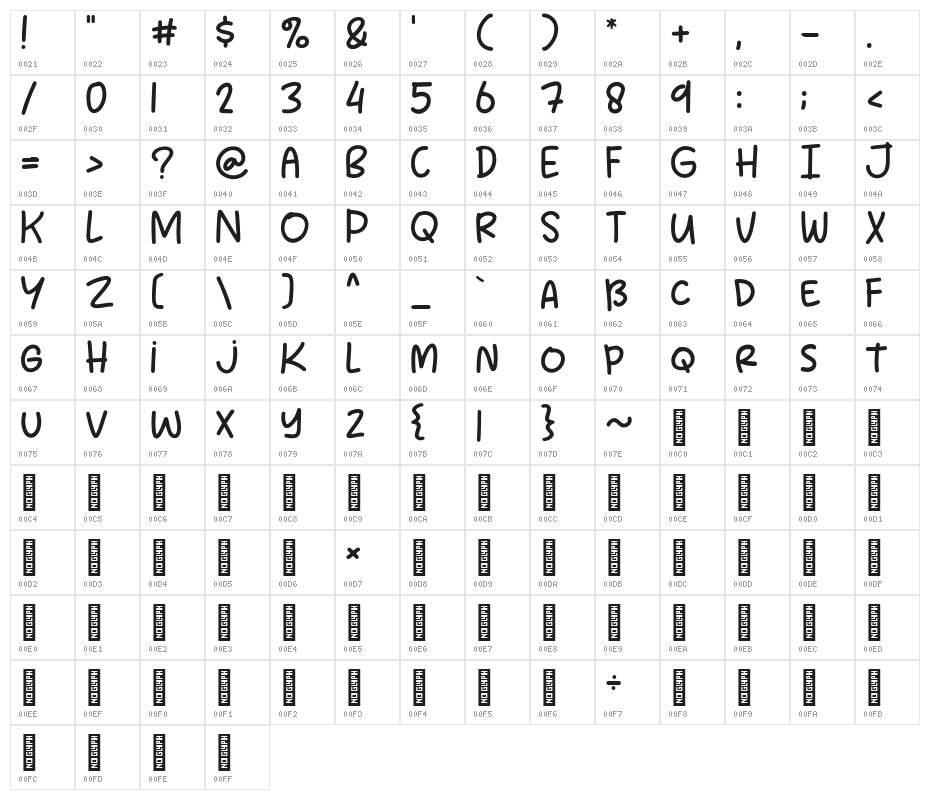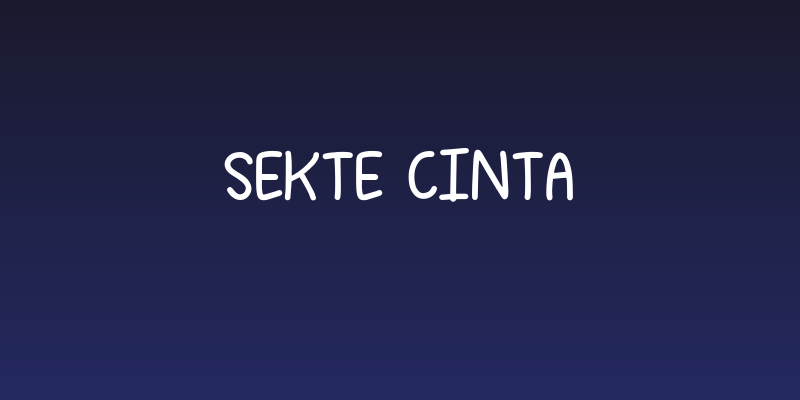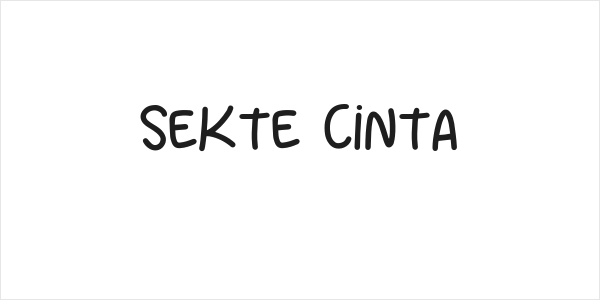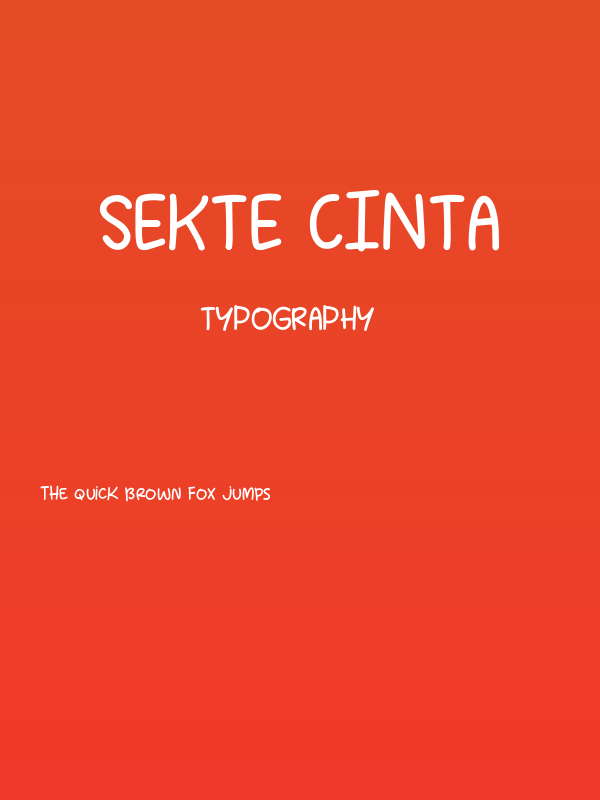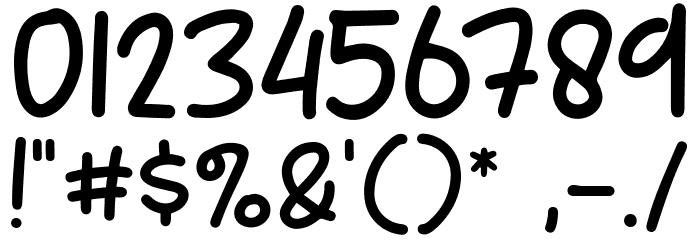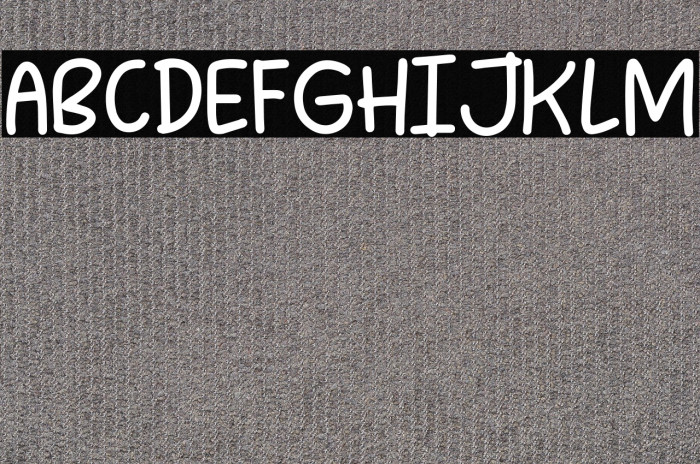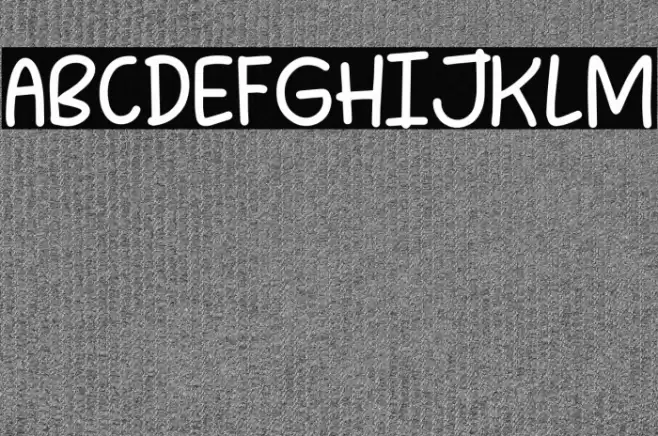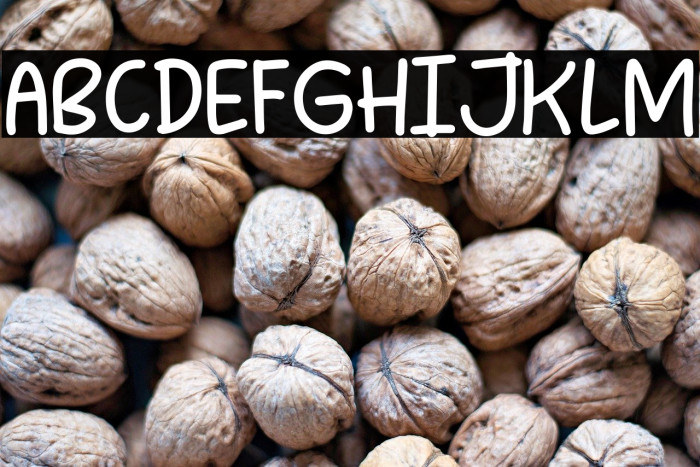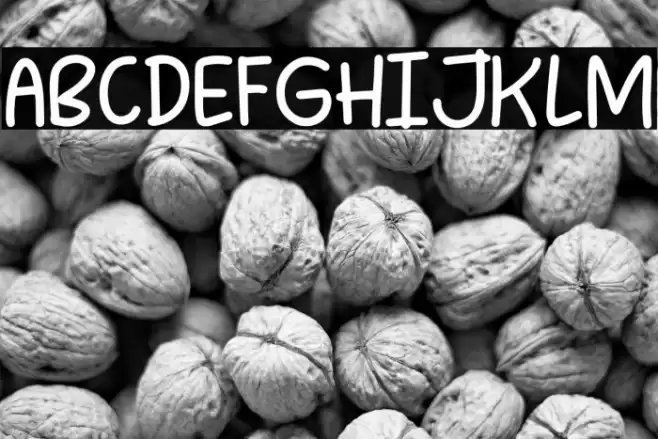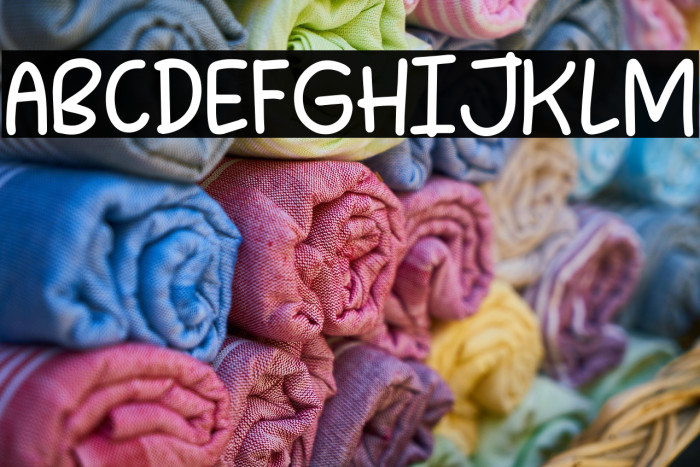
Sekte Cinta Font
✎ Comic
| Catégories | Comic |
| Style général | Casual |
| Cas d'utilisation | Headlines, Logos, Invitations |
| Projets proposés | Ideal for children's books, playful branding, casual invitations, and social media graphics. |